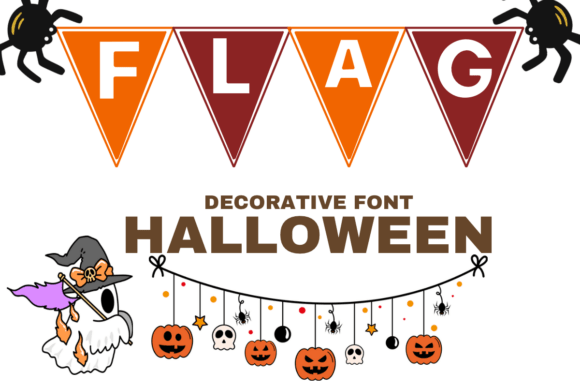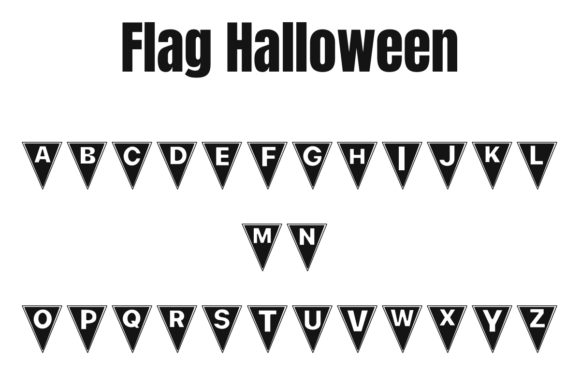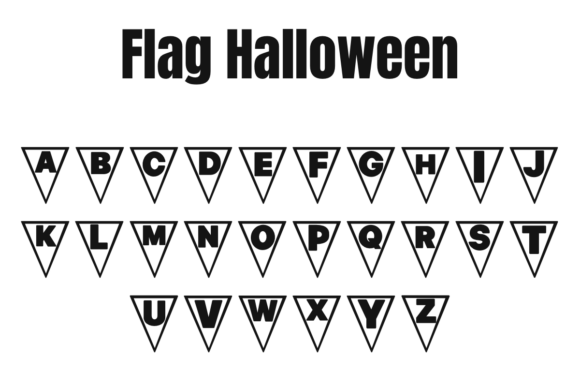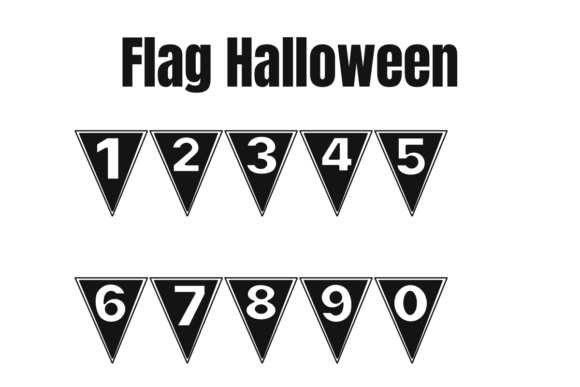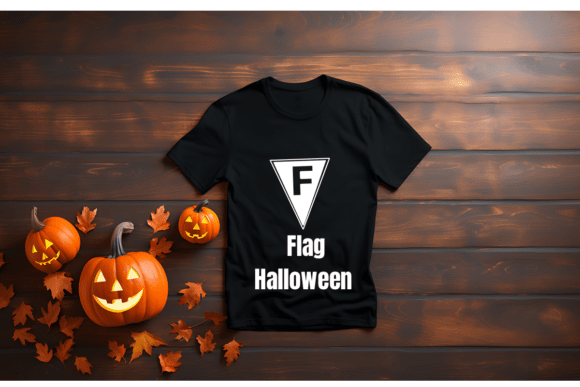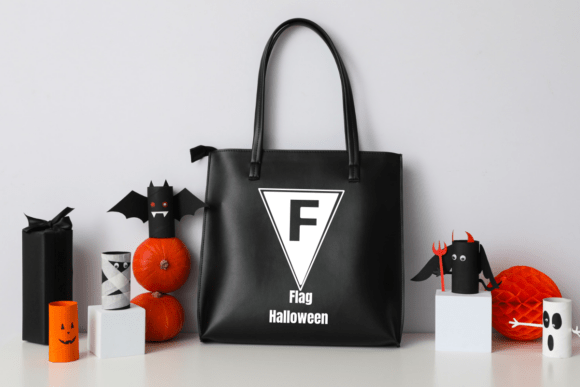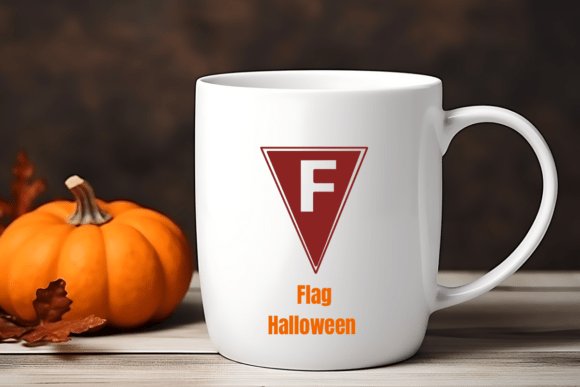
Get Ready to Spook Up Your Designs with Flag Halloween Font
You know that feeling when you’re brainstorming ideas for a project, and suddenly a spark of creativity hits you? It’s like the whole world opens up, and you can’t wait to bring your vision to life. For designers, it’s moments like these that make all the hard work worth it. But what if you could add an extra layer of magic to your designs, making them truly unforgettable?
That’s where Flag Halloween Font comes in – a delightful and festive decorative font that’s perfect for adding a touch of whimsy to your creative projects. Whether you’re designing invitations, social media graphics, or even a spooky Halloween-themed website, this font is sure to bring a smile to your audience’s faces. As a designer, you know how valuable it is to have the right tools at your disposal, and Flag Halloween Font is definitely one to add to your arsenal.
Key Features of Flag Halloween Font
- Unique Characteristics: The Flag Halloween Font features a unique design inspired by traditional Halloween flags, with bold and colorful letters that evoke a sense of spooky fun.
- Character Set: The font includes a comprehensive character set, including uppercase and lowercase letters, numbers, and punctuation marks, making it suitable for a wide range of applications.
Flag Halloween Font Review
When it comes to creating spooky and fun designs for Halloween, the right font can make all the difference. I recently had the chance to work with the Flag Halloween Font, and here’s my honest review.
- The font has a wide range of characters, including uppercase and lowercase letters, numbers, and symbols.
- The design is playful and eye-catching, perfect for adding a pop of personality to your Halloween-themed projects.
- The font is highly customizable, allowing you to adjust the size, color, and style to fit your needs.
- The font may not be suitable for professional or formal designs, as it’s quite playful and casual.
- The design may not be as intricate or detailed as some other Halloween-themed fonts.
Overall, the Flag Halloween Font is a great choice for casual, fun designs. While it may have some limitations, it’s a solid option for anyone looking to add a playful touch to their Halloween projects. With its wide range of characters and high customizability, it’s definitely worth considering.
Tips for Getting the Most Out of the Flag Halloween Font
Use the font to create spooky and festive designs for Halloween.
Combine the font with other Halloween-themed elements, such as jack-o-lanterns and bats.
Halloween party invitations and decorations.
Spooky social media posts and graphics.
Halloween-themed logos and branding materials.
Alternative Fonts to Flag Halloween Font
Creepster
Creepster is a bold, handwritten font perfect for creating a spooky atmosphere. It’s ideal for headings and titles in Halloween-themed designs. Creepster offers a more elegant and sophisticated look compared to Flag Halloween Font, making it suitable for high-end designs.
Creepster compared to Flag Halloween Font: While both fonts are bold and handwritten, Creepster has a more refined look and is better suited for high-end designs. Flag Halloween Font is more playful and cartoonish, making it better for children’s designs or lower-end projects.